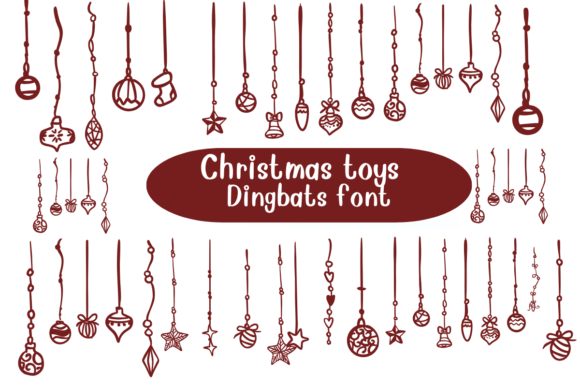
“Christmas Toys” is a charming dingbat font featuring letters adorned with festive decorations like hanging ornaments, twinkling lights, and cheerful ribbons. Perfect for adding a touch of holiday magic to your designs!
Christmas Toys Font